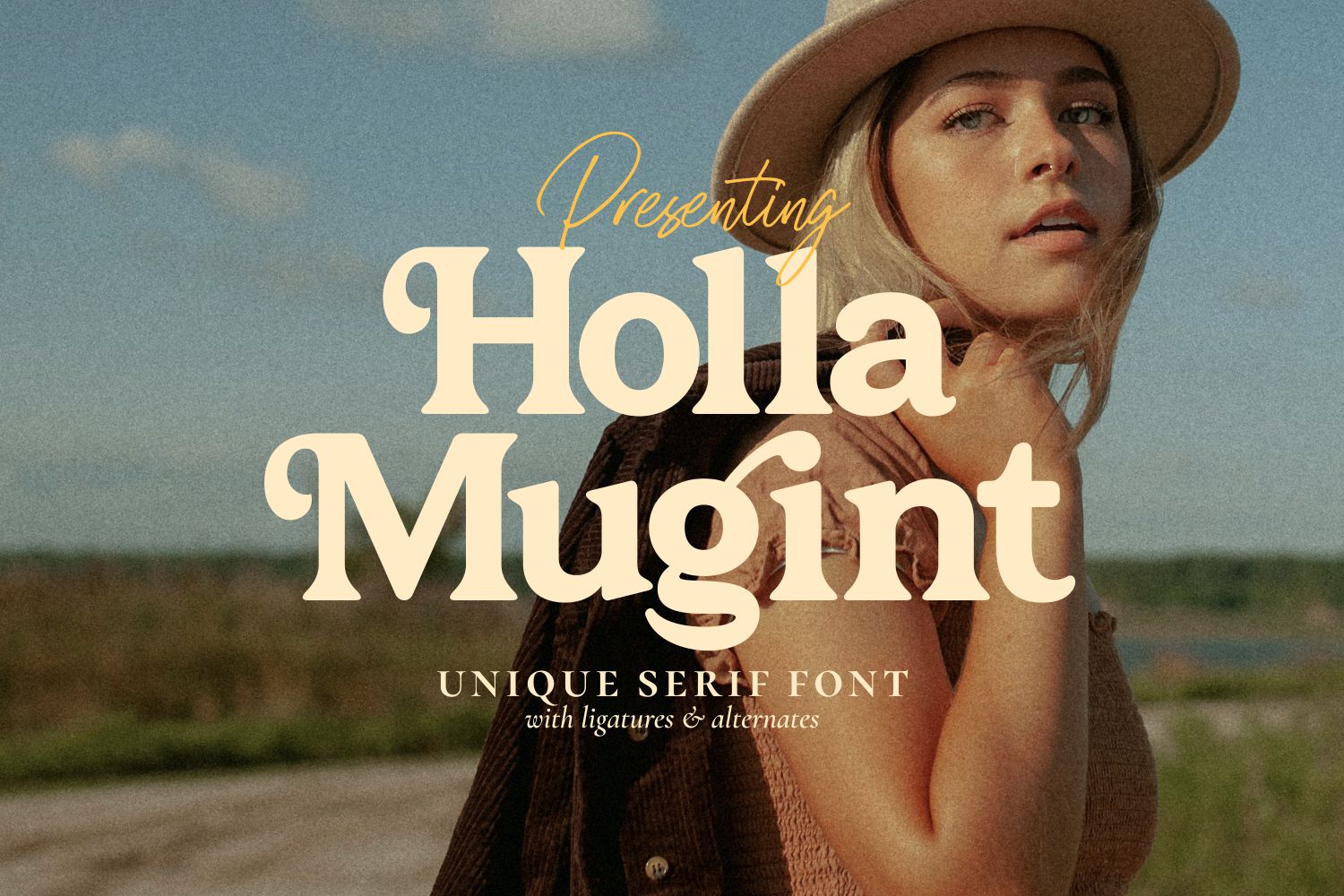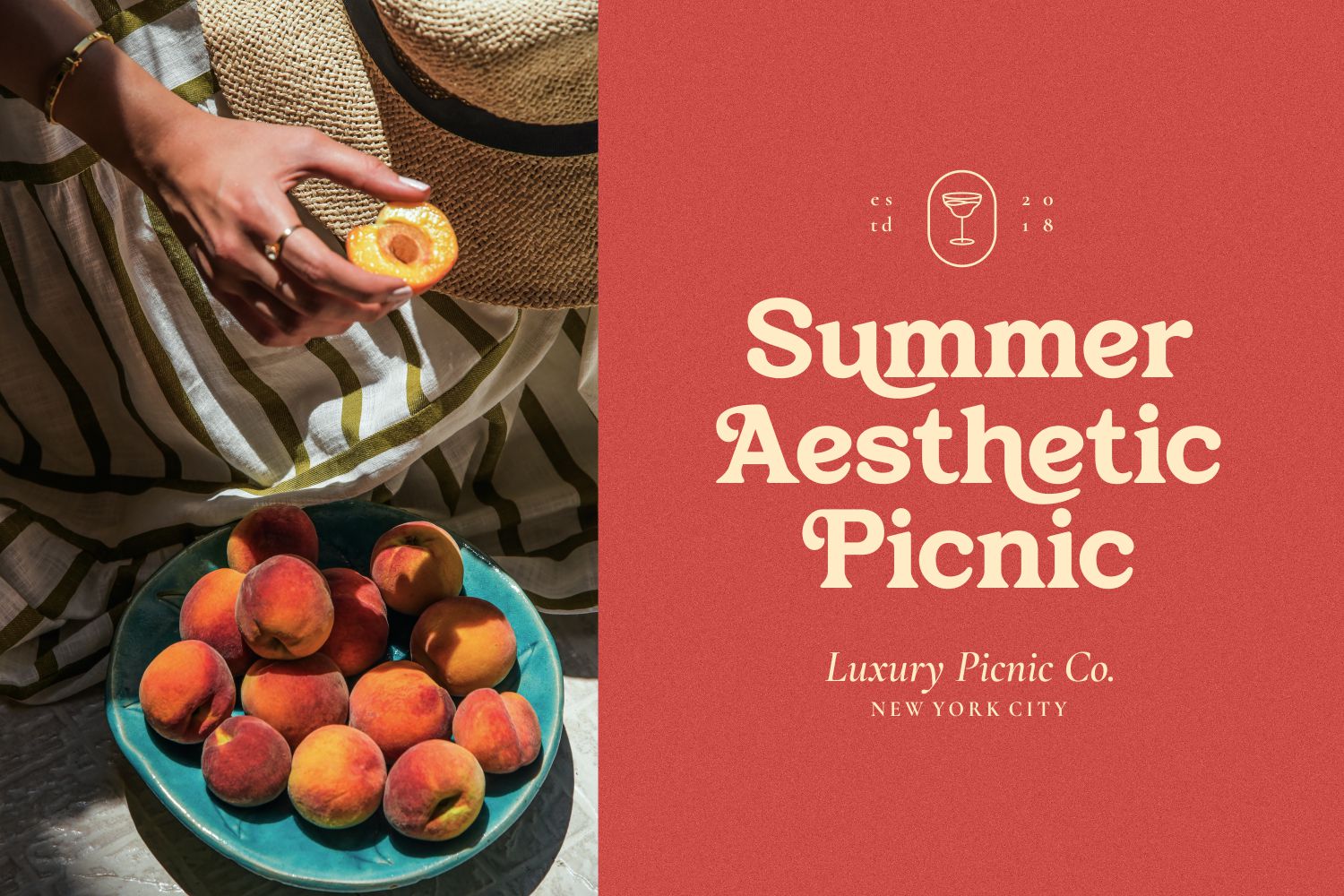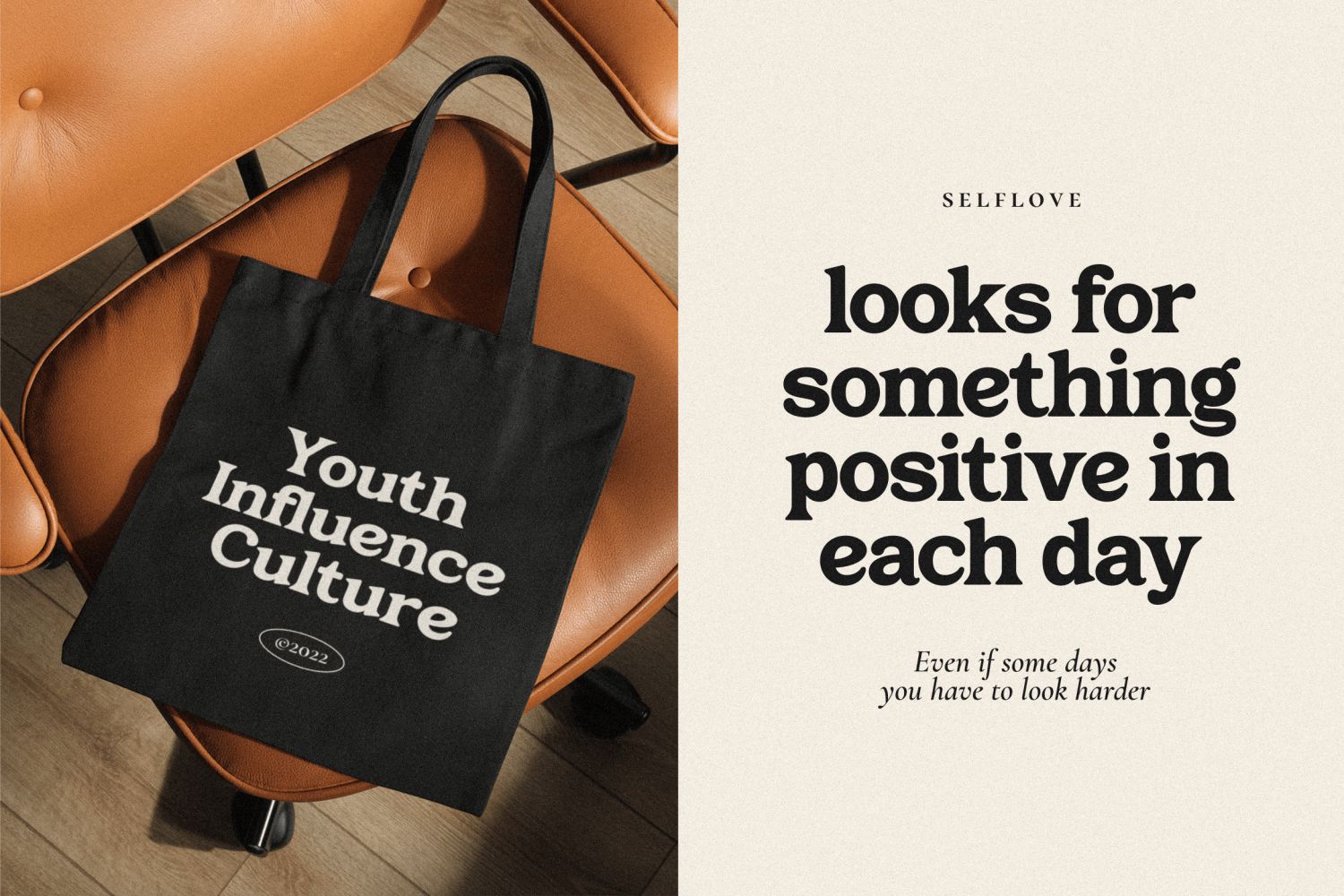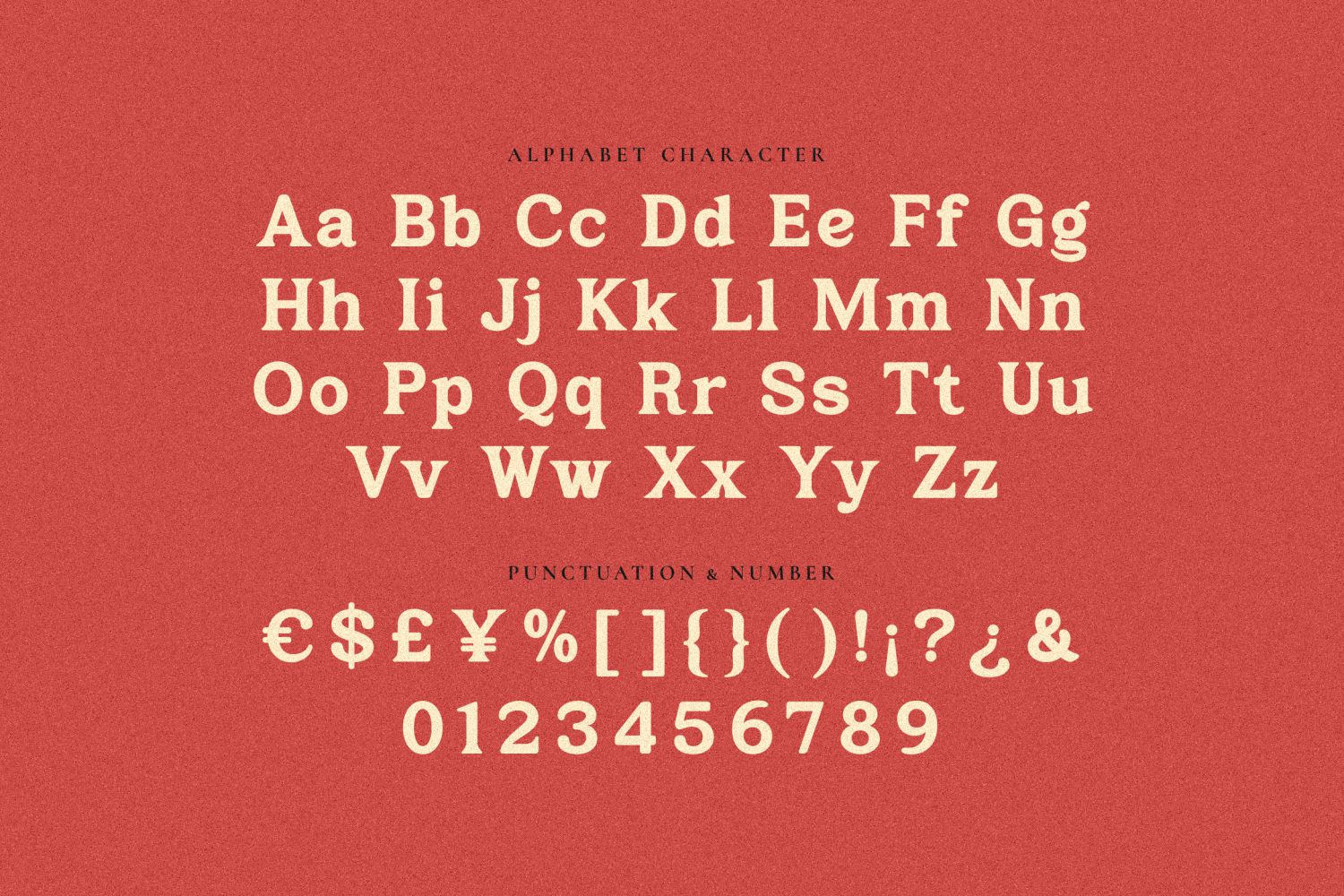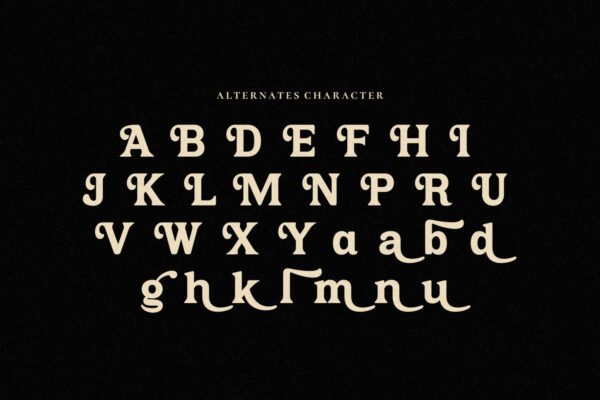
Holla Mugint
The Holla Mugint font is a unique serif display typeface that blends bold curves with refined elegance. Its smooth flow and subtle vintage influence make it perfect for modern projects that want a touch of nostalgic charm. With its striking alternates and stylish ligatures, this font is designed to bring personality and sophistication to your creative work.
Versatile and expressive, Holla Mugint works beautifully for branding, editorial design, packaging, social media, and lifestyle-inspired visuals. Whether used for fashion campaigns, summer-themed projects, or uplifting quotes, this font delivers a balance of playful character and timeless elegance that instantly captures attention.